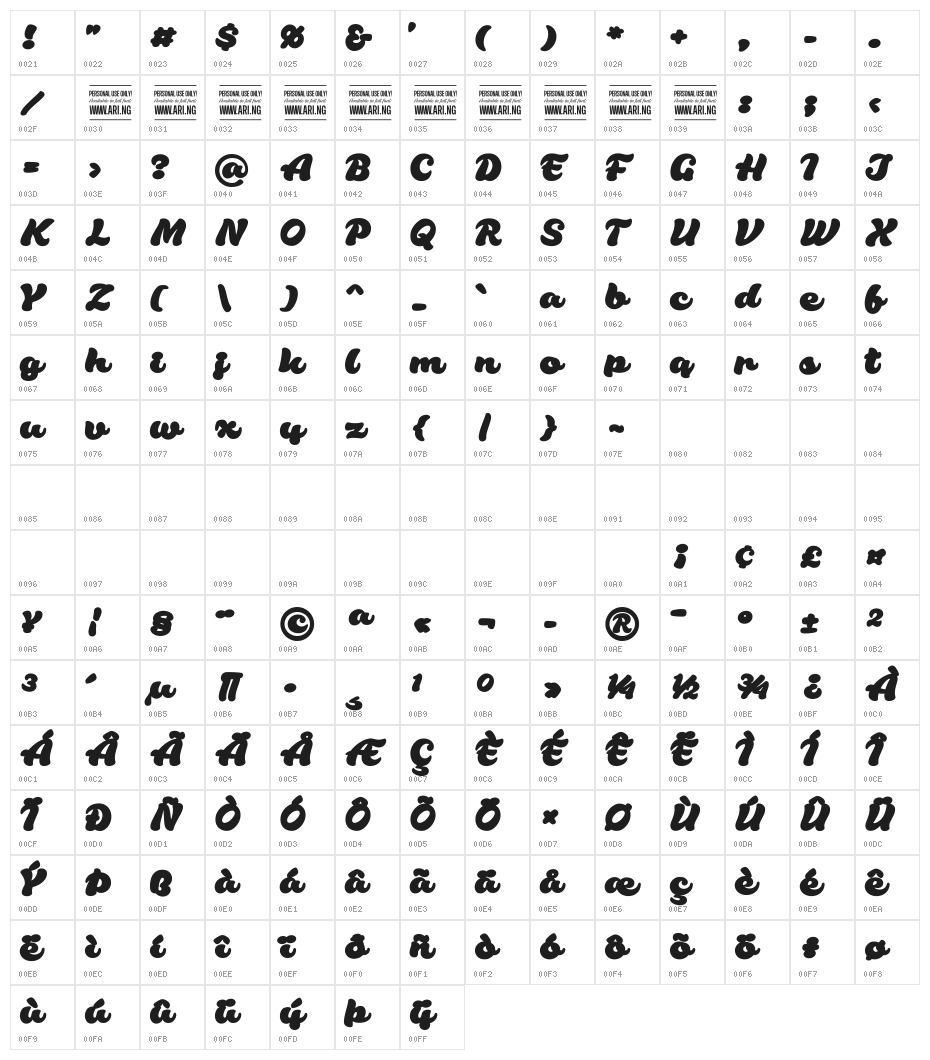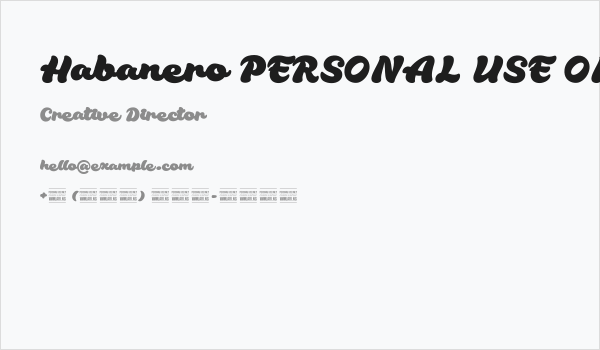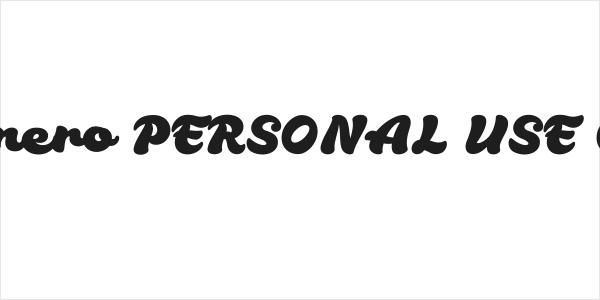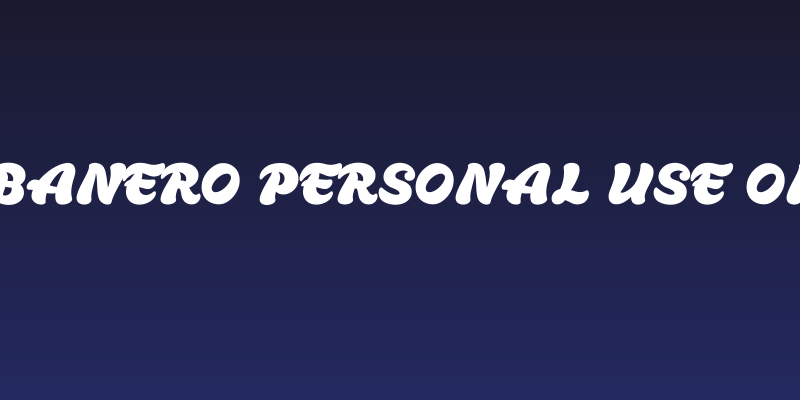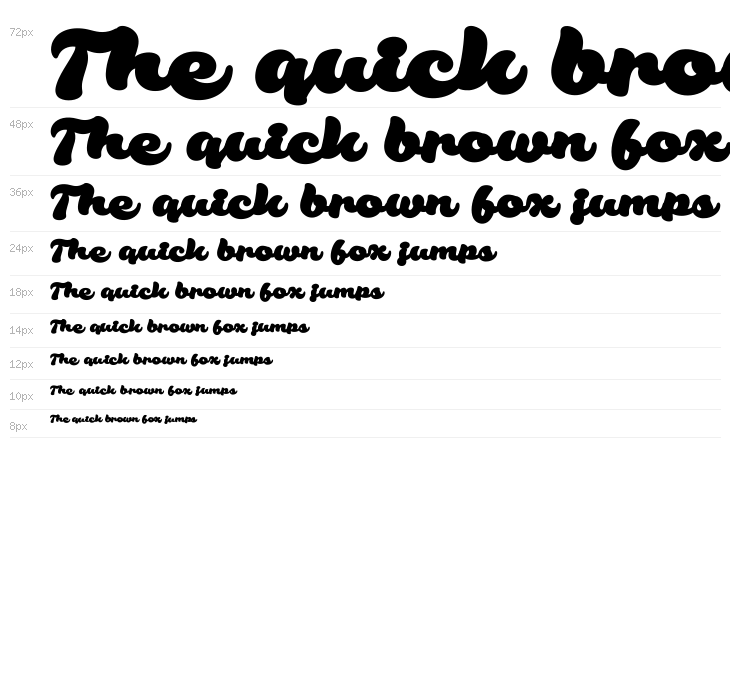
Habanero PERSONAL USE ONLY Font
Habanero PERSONAL USE ONLY Description
This font features a bold, flowing script style that exudes a sense of energy and movement. The characters are connected, creating a seamless and cohesive look. The uppercase letters are robust and dynamic, while the lowercase letters maintain a consistent flow with rounded edges. The numbers and special characters follow the same bold and cursive design, making them stand out with a playful yet elegant appearance. This font is ideal for projects that require a touch of personality and flair, such as branding, invitations, or creative headlines.
| Proposed Projects | Ideal for branding, invitations, creative headlines, and any project needing a lively script style. |